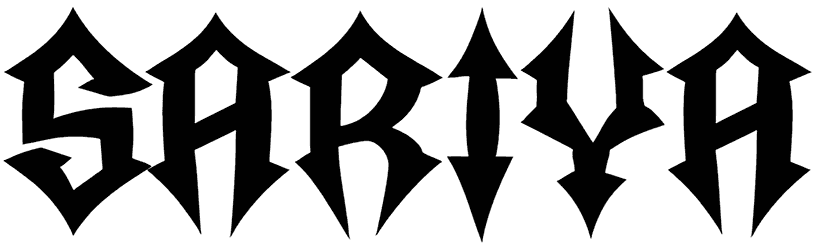
Sariya Font
Sariya font is an interesting Gothic font that seems entertaining. This edgy font immediately grabs your attention and will remain in your mind. The Sariya font may be helpful for various cases, such as posters, prints o…
Sariya font is an interesting Gothic font that seems entertaining. This edgy font immediately grabs your attention and will remain in your mind.
The Sariya font may be helpful for various cases, such as posters, prints on T-shirts, and tattoos; however, it does not support lowercase letters and some symbols. This modern font’s letters have sharp edges with a geometric style, creating an exciting vibe, so give it a try to impact your audience.
Sariya Font